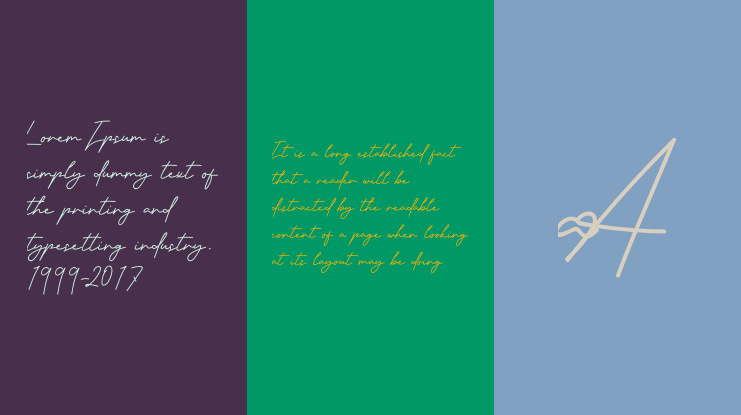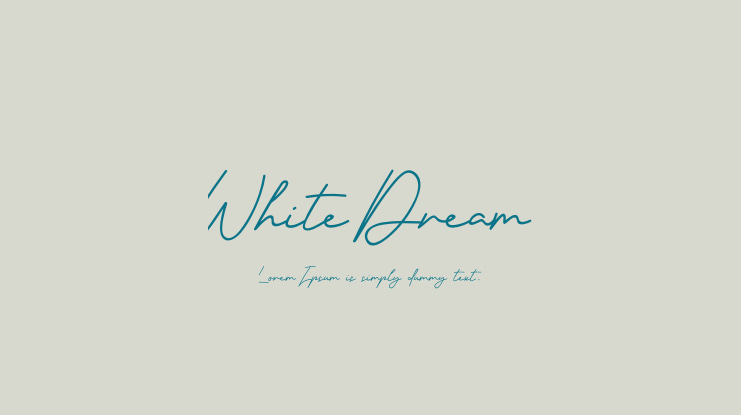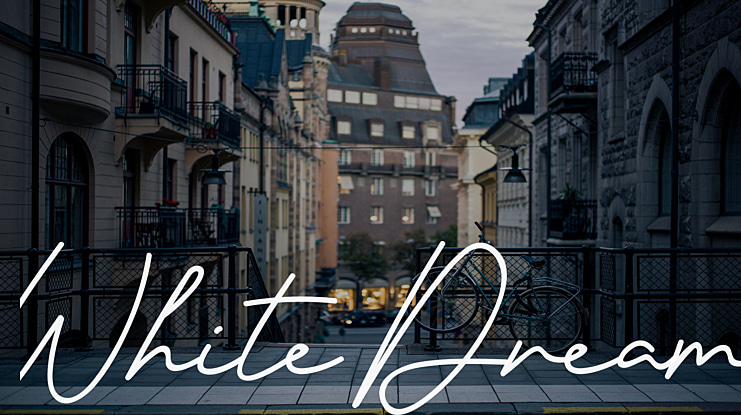
White Dream Font
White Dream is an exquisite handwritten font. Masterfully crafted to become a true favorite, it will add a touch of elegance to any creative project. Contemporary and fresh, it will make your work stand out!